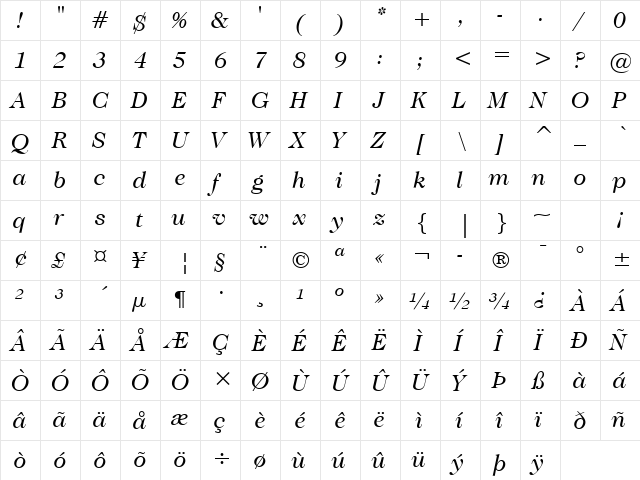
Caslon224 Bk BT Book Italic
Design Context for Caslon224 Bk BT Typeface
Caslon224 Bk BT is a composed and adaptable typeface that performs quietly and consistently across a wide range of design contexts. Its italic angle brings a sense of urgency and motion to the letterforms.
Pro Tip: Try Caslon224 Bk BT for annotation and caption copy alongside an upright companion — the contrast in angle creates a dynamic but ordered typographic system.